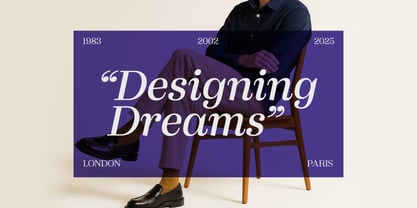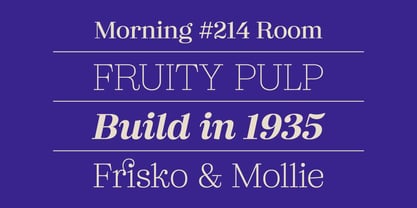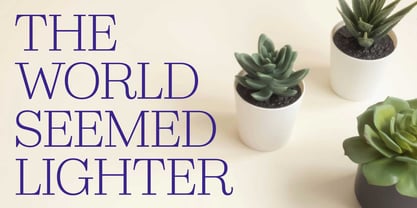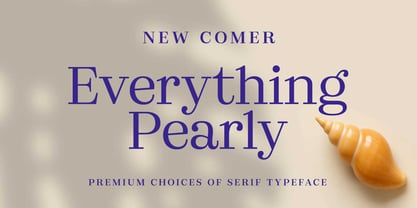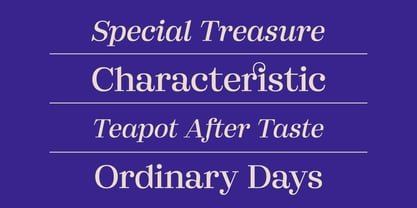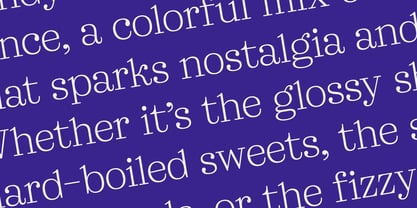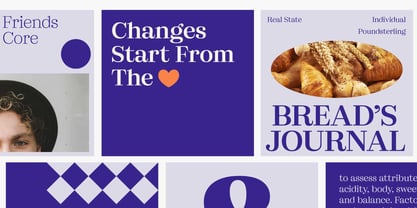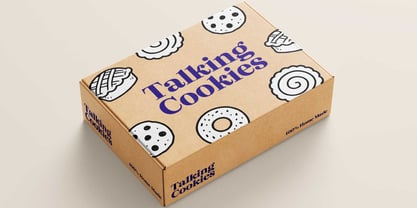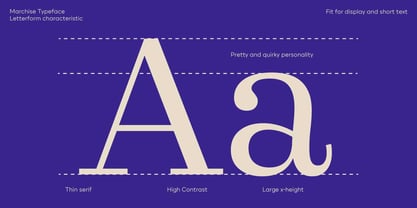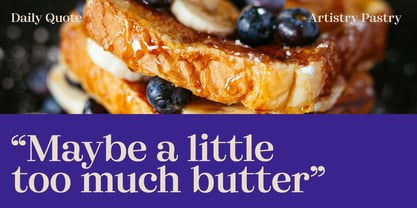
Marchise
by Eko Bimantara
Marchise is a high-contrast modern serif family with a flamboyant yet refined personality, offering 16 styles ranging from Thin to Black with matching italics. Its expressive and quirky details bring a unique character that stands out while maintaining professional versatility, making it an excellent choice for display use, short text, logos, brand identities, and product packaging across various themes and applications
Eko Bimantara is a type designer from Indonesia. Always has an intention to creating fonts that not only look great but also perform across a wide range of mediums and also across wide range of theme. The goal is to give designers the tools to make their projects that speaks a lot with various expression. Eko Bimantara’s fonts are featured in everything from corporate identities to street art posters, and have numerous ideas and concept ready to expand for fresh fonts for years further.